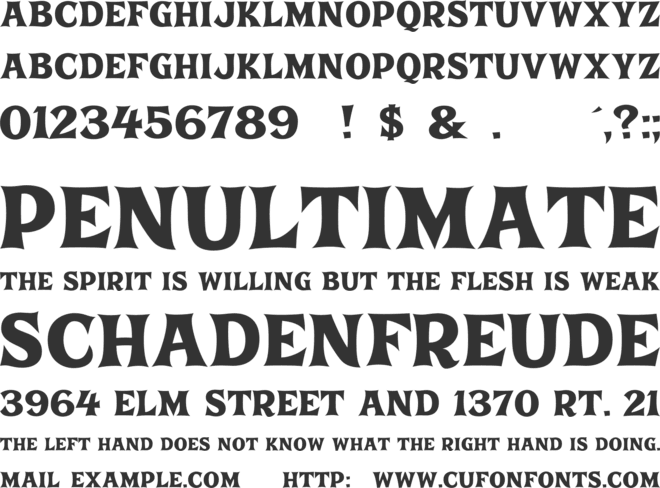
Pirate Treasure Font
Russ McMullin
This is my attempt to make a font that is a little scary, but more on the fun side than sinister.
Pirate Treasure font preview